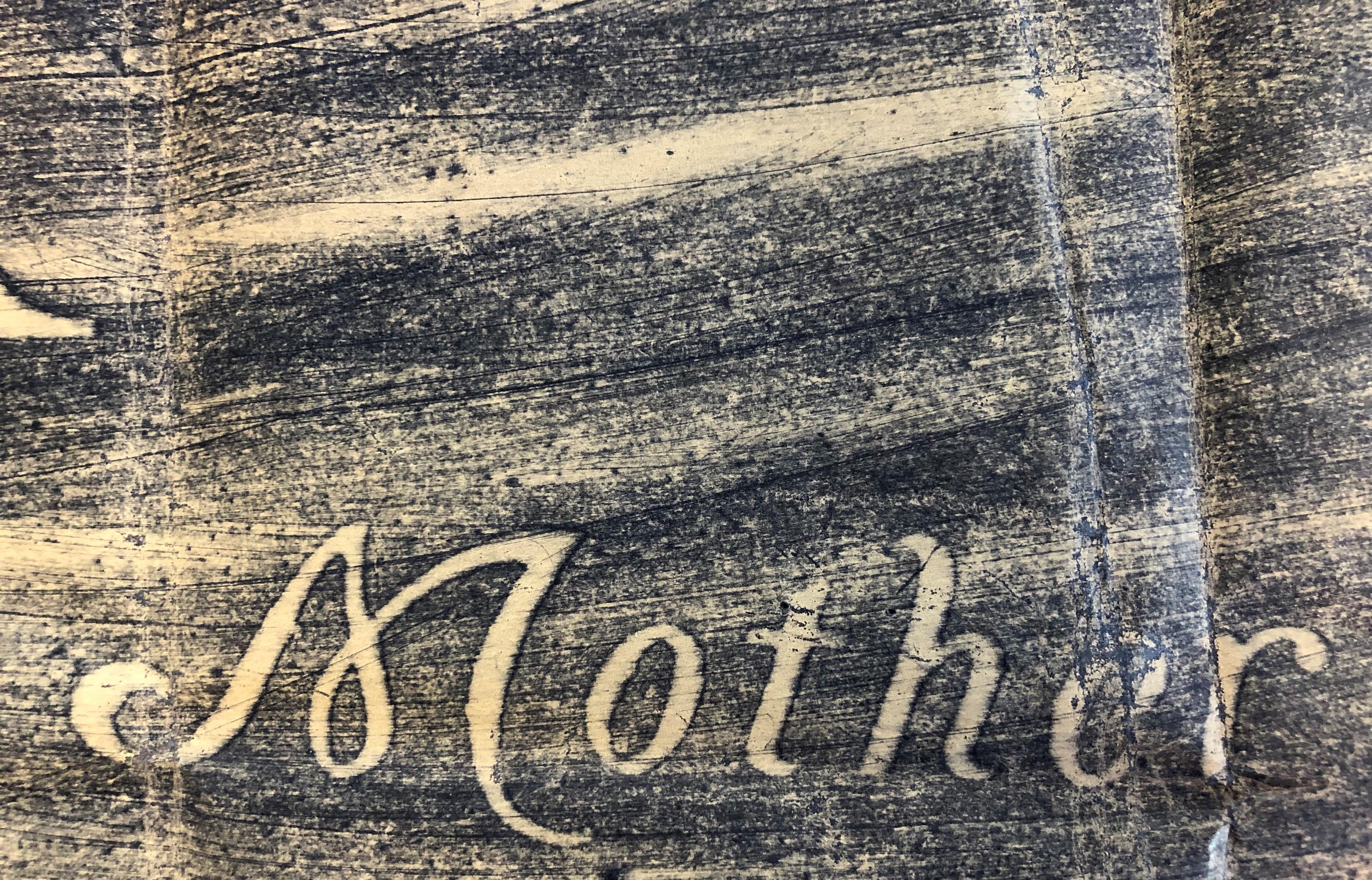
We usually only get this for the words Mother and Father, so we recreated those words, but are seeing other words popping up regularly now, like Sister. Does anybody know what this font is called?
This is a custom script style by the Johns-Carabelli company of Ohio. The company has designed several lettering styles for internal use, which were originally hand-drawn on each memorial–however, it is likely they have since created digital versions.